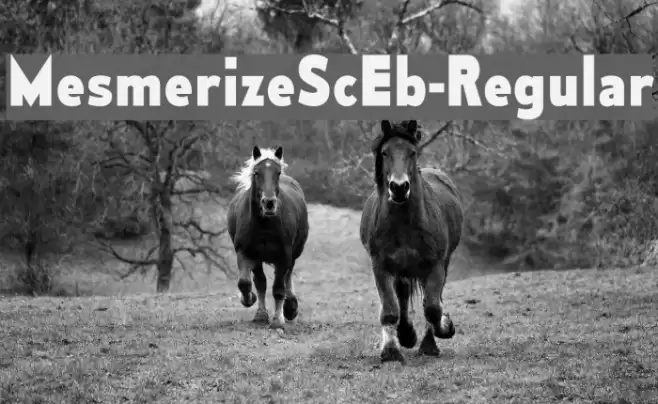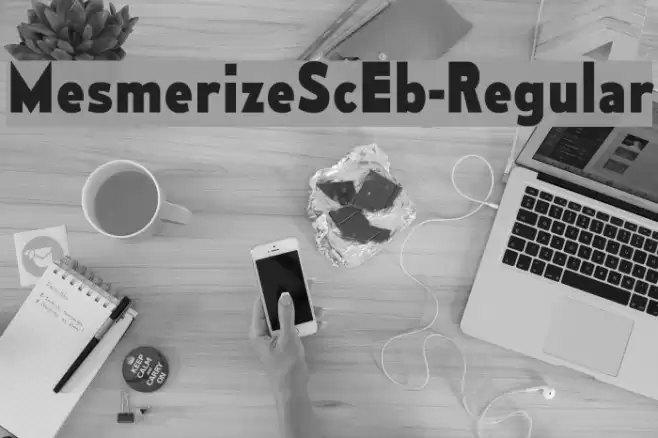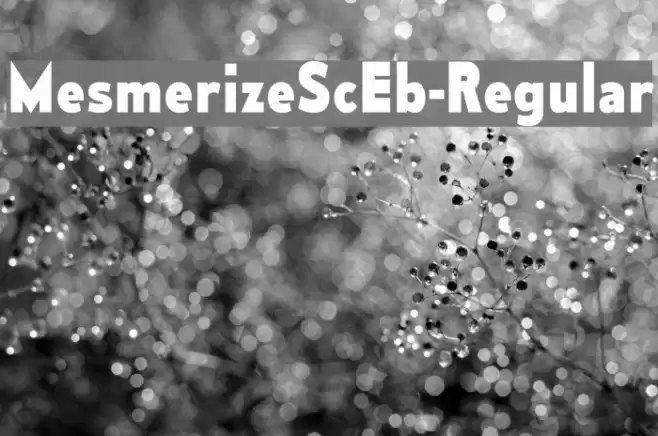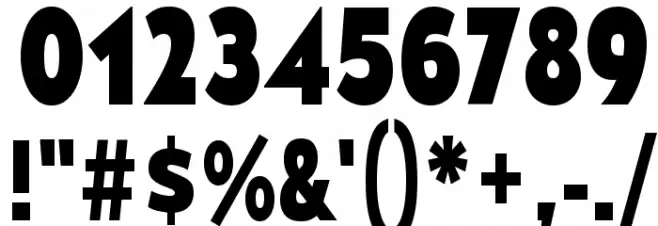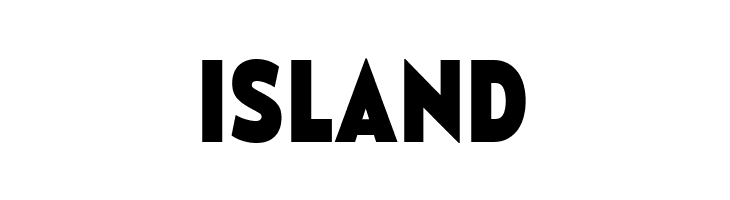
MesmerizeScEb-Regular Font
MesmerizeScEb-Regular Description
This bold and impactful typeface features strong, geometric letterforms with a modern aesthetic. The uppercase letters are particularly striking, with a uniform height and width that create a sense of stability and confidence. The lowercase letters maintain this boldness while offering a slightly softer edge, making them versatile for various design applications. The numerals are clear and easy to read, with a consistent weight that matches the alphabet. Special characters are well-integrated, ensuring seamless use in diverse contexts. Overall, this font exudes a contemporary and assertive style, ideal for making a statement.
A bold, geometric typeface with a modern and impactful style from Uncategorized fonts.
- Proposed Projects: Ideal for branding, advertising, headlines, and any project requiring a strong visual presence.
- Use Case: Headlines, Logos, Branding